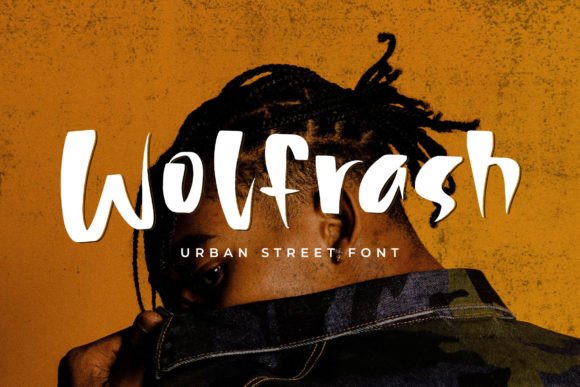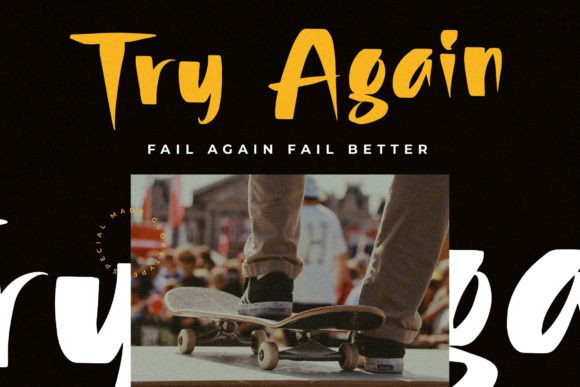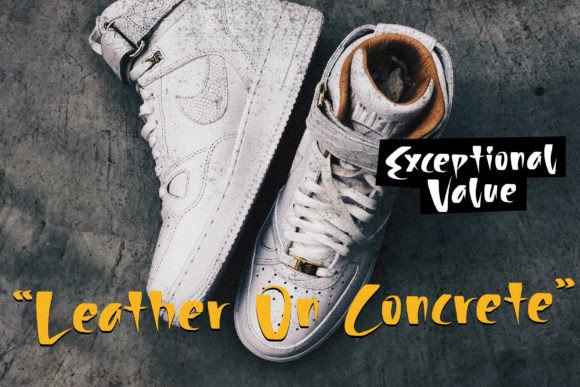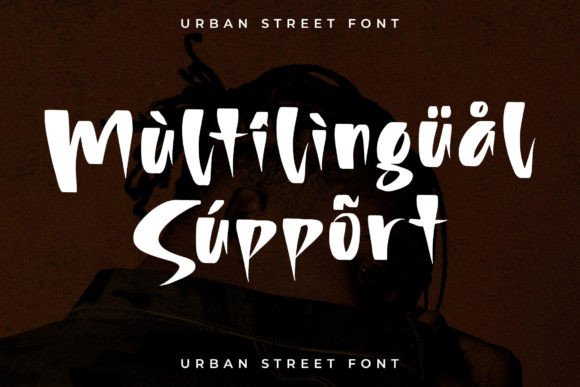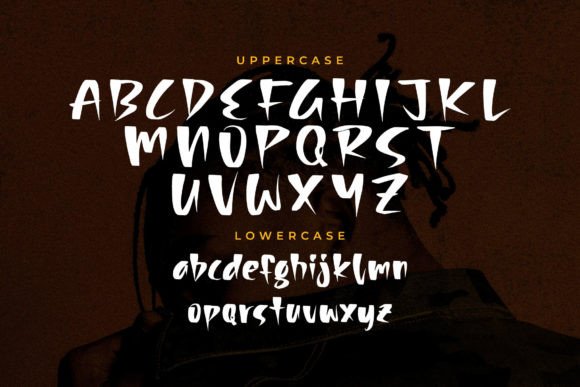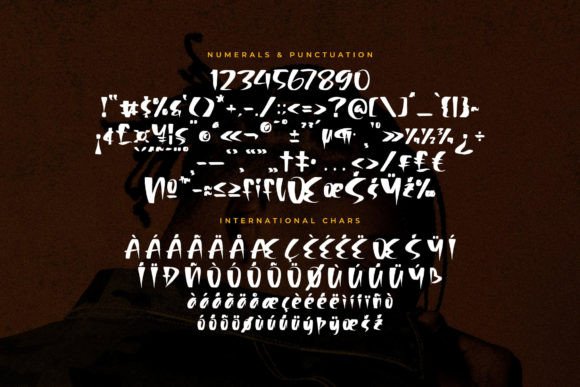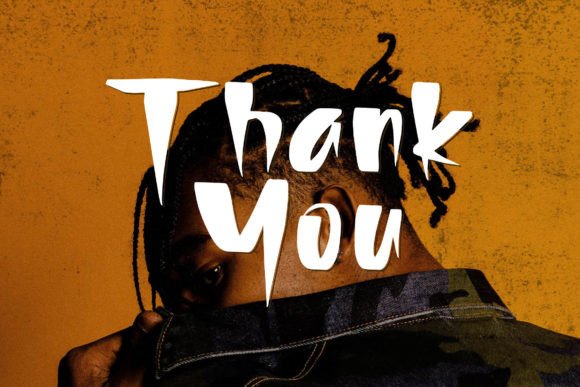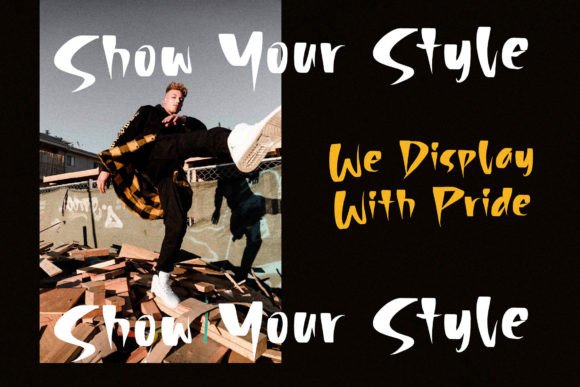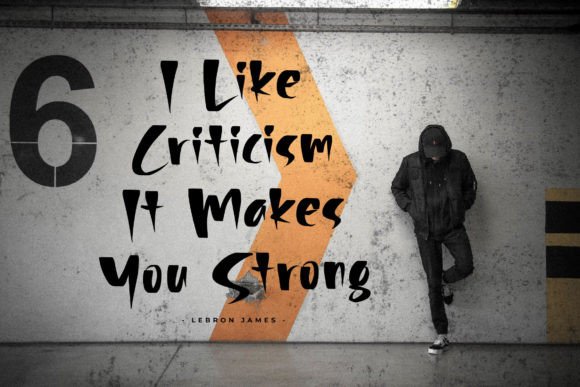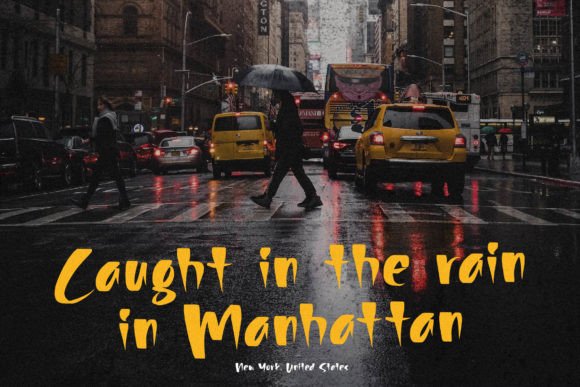
Wolfrash Font
About Wolfrash Font
Wolfrash is a modern handwritten font that blends charm, style, and a touch of sophistication. Whether you are designing for weddings, personal projects, or professional branding, Wolfrash offers an elegant handwritten look that elevates your creations. Each letter flows naturally, giving your text a warm and authentic feel that draws attention and leaves a lasting impression.
Perfect for Wedding and Event Designs
Wolfrash is the ideal choice for wedding invitations, save-the-date cards, and thank you notes. Its smooth, flowing strokes create a romantic mood that feels personal and inviting. You can also use it for engagement announcements, bridal shower invitations, or any design that celebrates love. The gentle curves of each character will make your text feel meaningful and refined.
Elegant and Modern Appeal
One of the reasons designers love Wolfrash is its modern look. The font combines classic handwriting with contemporary flair. This balance makes it perfect for a variety of projects. You can create logos that look professional and stylish or design social media posts that stand out. The clean lines and smooth connections between letters bring clarity to any text, making your message easy to read while still feeling special.
Versatile for All Creative Projects
Wolfrash adapts to nearly any creative need. Use it to create:
• Wedding invitations and event stationery
• Personalized greeting cards
• Business cards and brand identities
• Quote prints and wall art
• Product packaging and labels
• Logos and website headers
• Social media graphics and promotions
Whatever you design, Wolfrash will add a touch of personality and elegance.
Adds Authenticity to Your Brand
Handwritten fonts are powerful tools for building emotional connections. Wolfrash helps your brand feel more human, authentic, and relatable. If you sell handcrafted products, run a creative business, or want to make your brand approachable, this font will communicate your message with warmth and style.
Why Choose Wolfrash?
Designers choose Wolfrash for many reasons:
• Modern style: Clean yet expressive lettering
• Versatility: Suitable for personal and professional projects
• Readability: Clear characters at any size
• Charm: Adds an inviting feel to any text
Wolfrash is more than a font—it’s a creative partner that helps your ideas shine.
Make Your Designs Memorable
Whether you are crafting a heartfelt note, designing wedding stationery, or launching a new brand, Wolfrash makes your work look polished and unique. It combines the beauty of handwriting with modern sensibility, ensuring your designs stand out with elegance and charm.